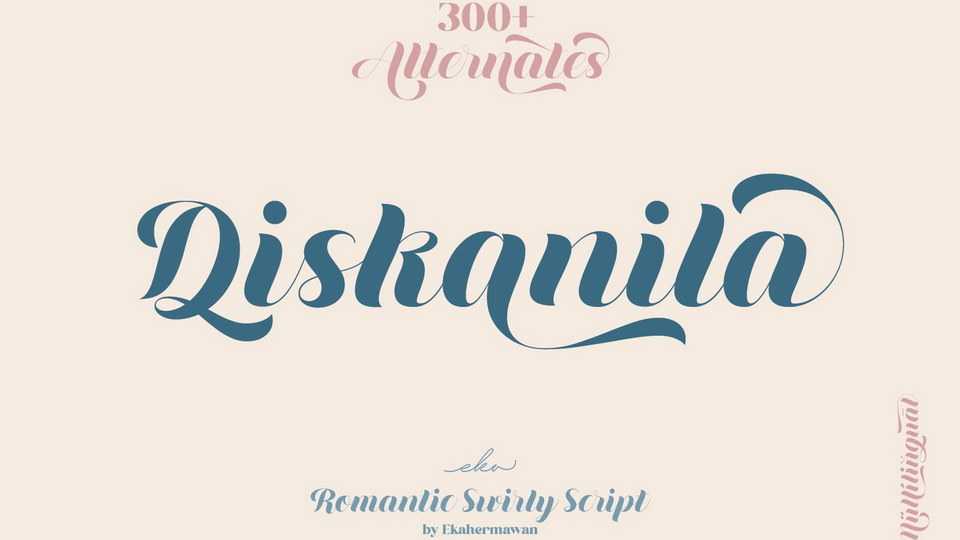
Download Diskanila font, a romantic swirly script font created for a wide variety of romantic typography design results. Diskanila is perfect for logo, feminine branding, poster, magazine, label, merchandise, presentation, advertising, and invitation card more beautiful!
Designer: Putu Eka Hermawan